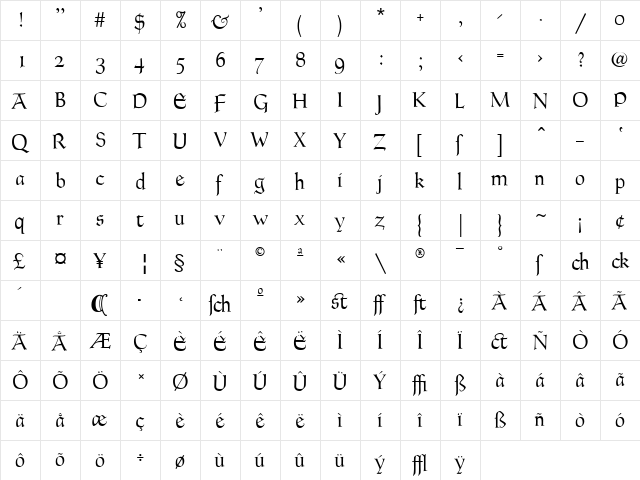
Goudy Thirty Regular
Design Context for Goudy Thirty Typeface
Goudy Thirty takes a measured approach to typography — its balanced proportions and neutral character make it a reliable workhorse for both digital and print work.